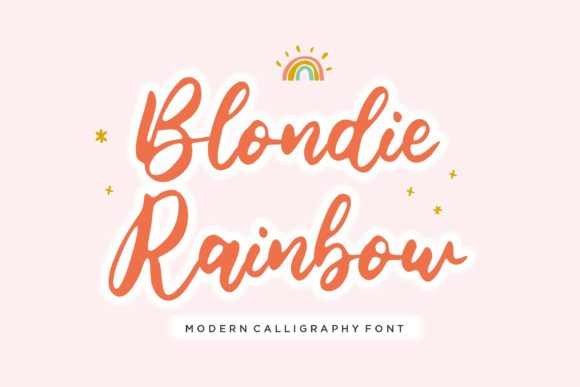
The Blondie Rainbow Font: A Timeless Choice for Creative Designs
I’ll never forget the moment I stumbled upon the Blondie Rainbow font while working on a branding project for a children’s toy company. I was struggling to find the perfect font that would capture the playful and whimsical feel of the brand. That’s when I discovered Blondie Rainbow, and it instantly became my go-to choice. With its lovely and timeless handwritten style, this font has been a game-changer for my designs ever since.
An Honest Review of Blondie Rainbow
• Unique and beautiful touch to every letter ✅
• Perfect for creating eye-catching logos, branding, and quotes 📣
• Handwritten style that adds a personal touch to designs 📝
• May not be suitable for very small font sizes ⚠️
• Limited availability of stylistic alternates compared to other fonts 🤔
• Some users may find the font too ornate or playful for certain designs ⚠️
The Story Behind Blondie Rainbow
Blondie Rainbow was designed by a talented typographer who wanted to create a font that would capture the essence of a bygone era. Inspired by vintage children’s books and playful stationery, the designer crafted a font that would be both timeless and whimsical.